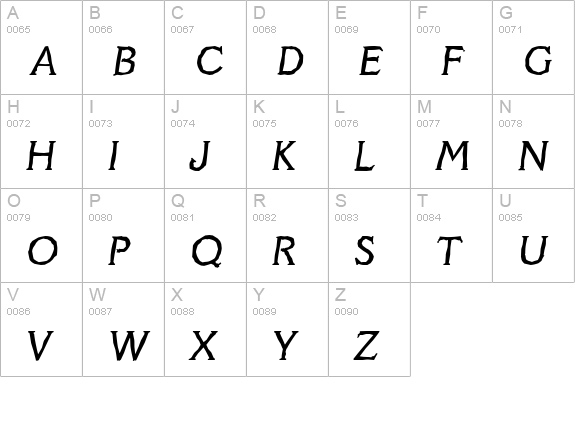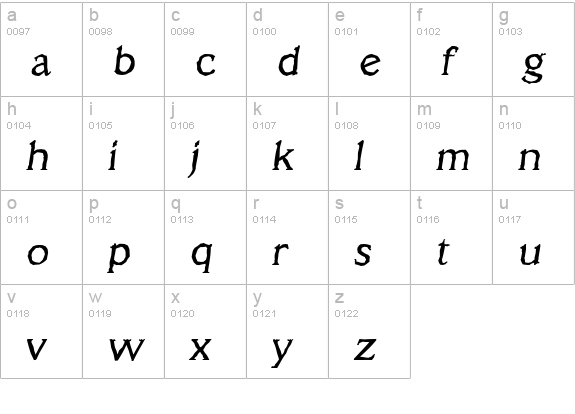
VeracruzAntique-Italic Font Details
VeracruzAntique-Italic is a distinctive, italic variant in the VeracruzAntique typeface family \xE2\x80\x94 well suited to design and typography projects.
VeracruzAntique-Italic is a beautifully crafted font that exudes elegance and sophistication. Its graceful curves and intricate details make it perfect for adding a touch of vintage charm to your designs. The italicized style adds a sense of movement and fluidity, making it ideal for conveying a sense of drama or elegance. The VeracruzAntique-Italic font is not only visually stunning but also versatile, suitable for a wide range of design projects from invitations to branding to editorial layouts. Its timeless appeal ensures that it will remain a classic choice for years to come. Best of all, VeracruzAntique-Italic is available for free download at FontsMarket.com. This means that you can easily access this exquisite font and enhance your creative projects without any cost. Don't miss out on the opportunity to elevate your designs with the beauty and sophistication of VeracruzAntique-Italic font. Download it today and let your creativity soar!